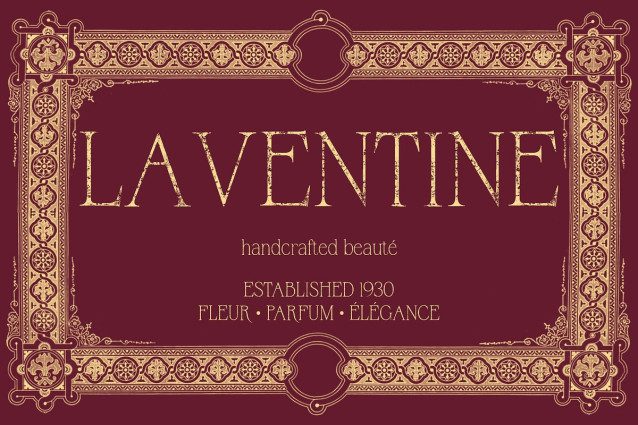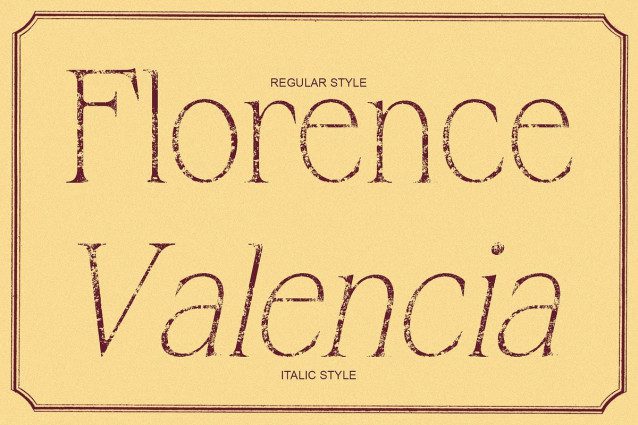
Bornean Stamp Font
Bornean Stamp Font – Feminine Elegance with Vintage Charm Soft Curves with Delicate Expression This is a feminine display font defined by its graceful curves and refined form, evoking softness and sophistication. Each letter carries a gentle rhythm that radiates warmth and charm, making it ideal for projects that aim to express beauty, sensitivity, and elegance in a subtle yet captivating way.
Vintage Appeal Through Stamp Texture The stamp texture gives this font a retro, handcrafted feel, adding depth and character to its smooth lines. This textured touch introduces a nostalgic vintage quality while maintaining a sense of modern refinement perfect for designs that balance classic allure with contemporary style.
Ideal for Invitations and Lifestyle Design Whether used for wedding invitations, lifestyle branding, or vintage packaging, this font brings a distinctive feminine tone that feels both timeless and expressive. It shines in projects that emphasize personal connection, emotional storytelling, or graceful aesthetics.
A Perfect Blend of Softness and Style Combining elegant design and handcrafted charm, this font captures the spirit of refined femininity. Its smooth flow and vintage texture make it a versatile choice for creative professionals looking to design materials that feel romantic, sophisticated, and beautifully nostalgic.